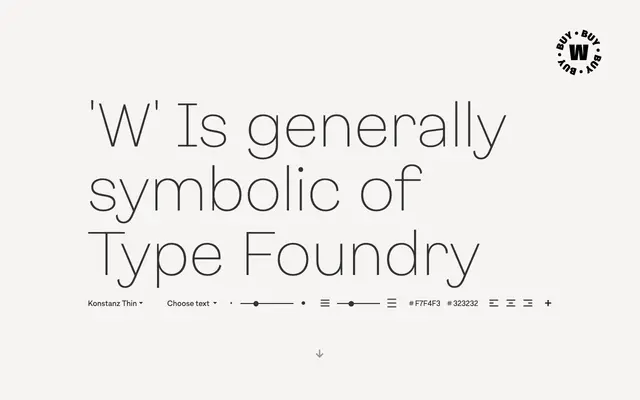
Konstanz
W Type Foundry · Bruno Jara Ahumada
A grotesque sans with Bauhaus and Futura references across eight weights, aimed at editorial and cultural-institution work.
Designed by Bruno Jara Ahumada, Konstanz draws on grotesque convention while reintroducing geometric gestures from Bauhaus and Futura, giving it a cooler, more institutional character than a straight revival. Sixteen styles span Thin through Black with matching italics, and a stylistic set extends its versatility. The family is pitched at museums, galleries, design biennials and similar cultural contexts, as well as editorial, poster and branding applications.
Described as grotesque in aesthetic while drawing on Bauhaus and Futura geometric influences, placing it within a geometric-inflected grotesque tradition rather than a pure geometric sans.